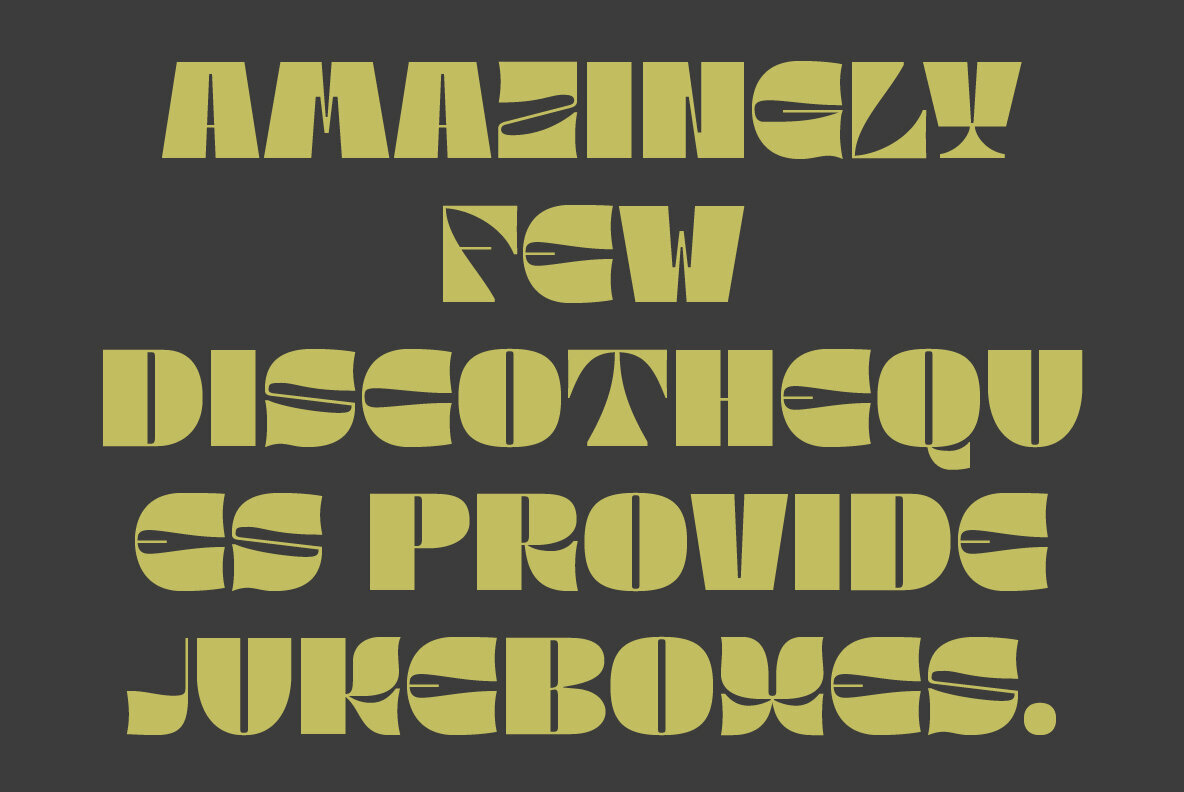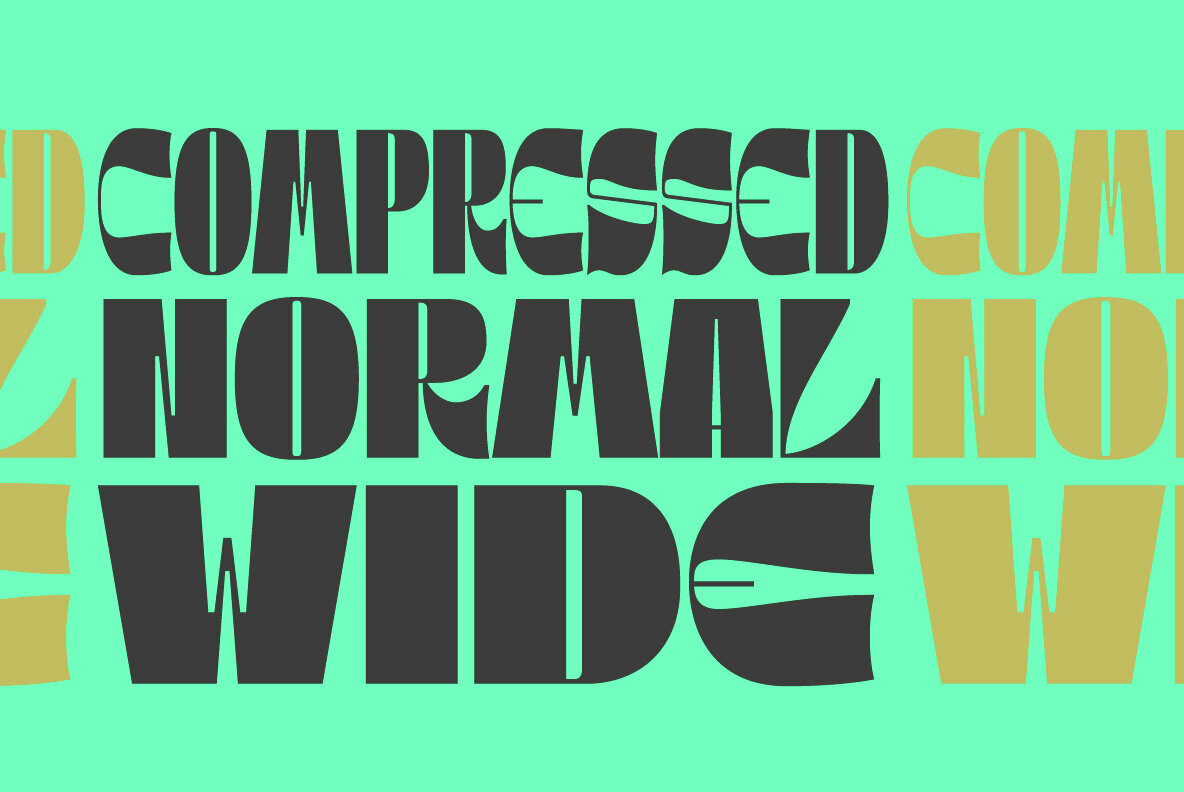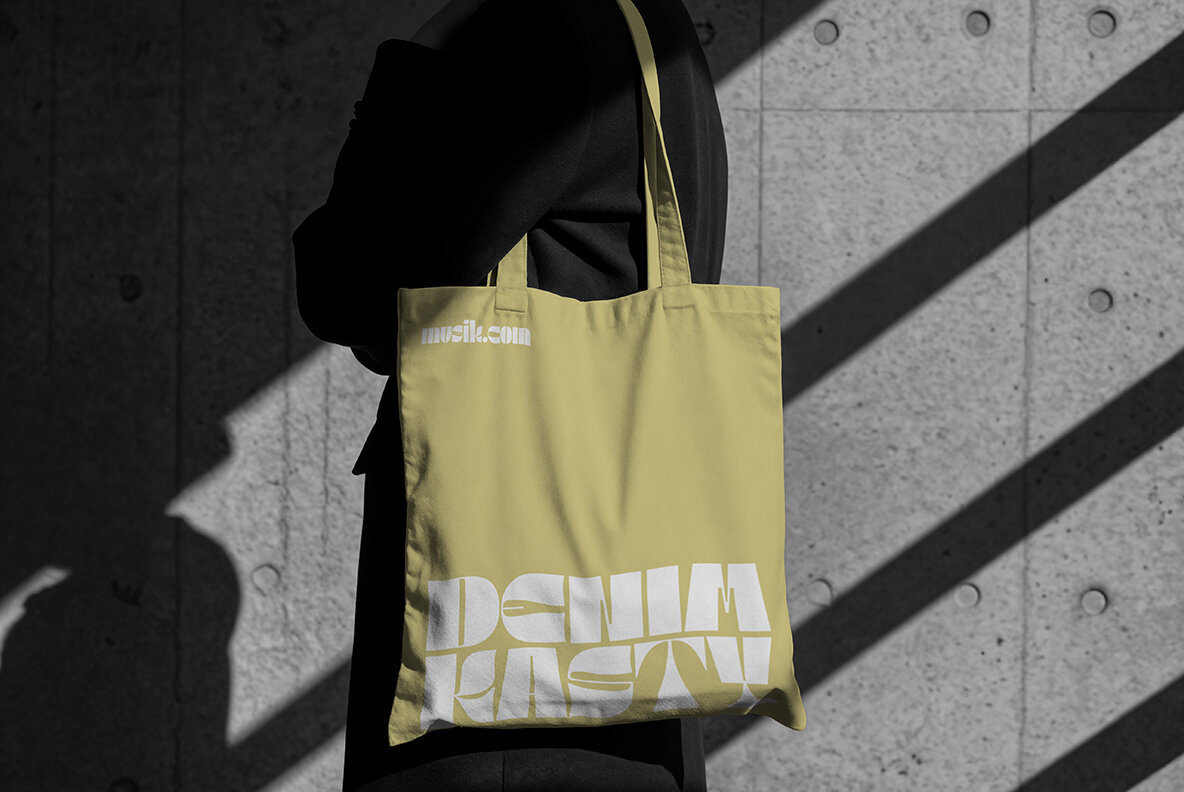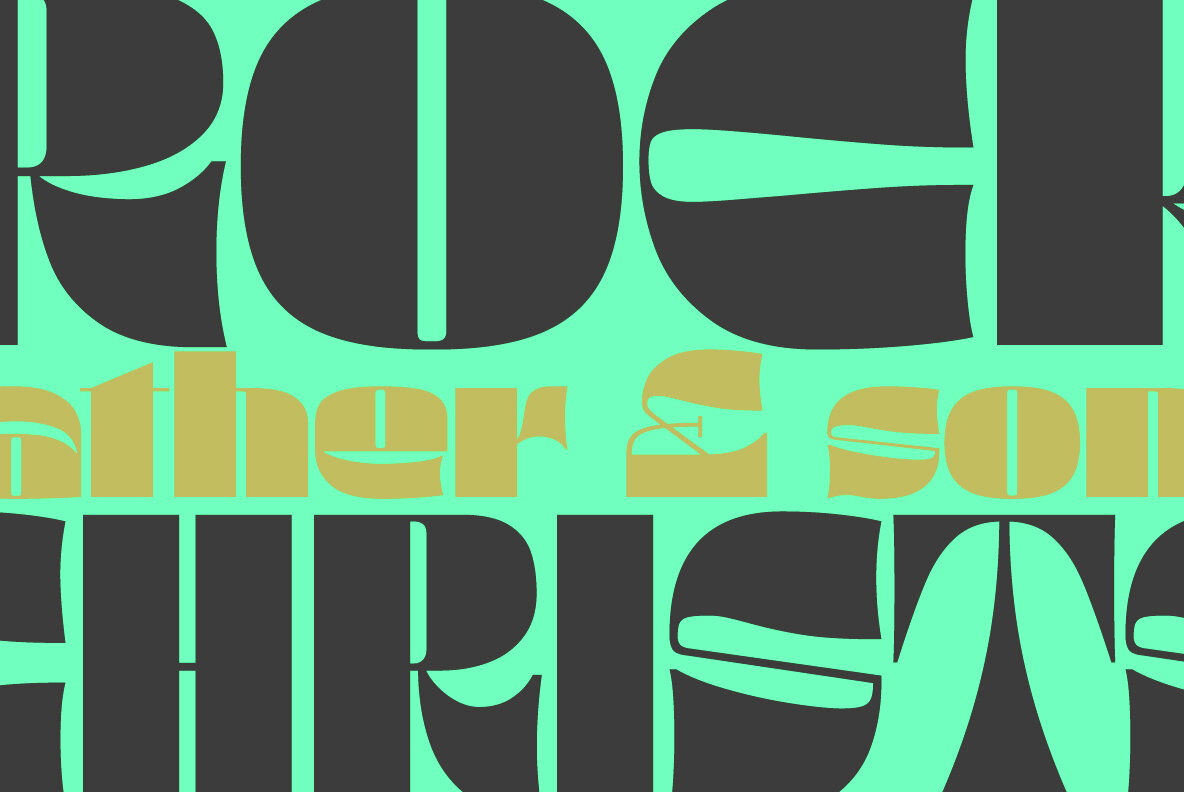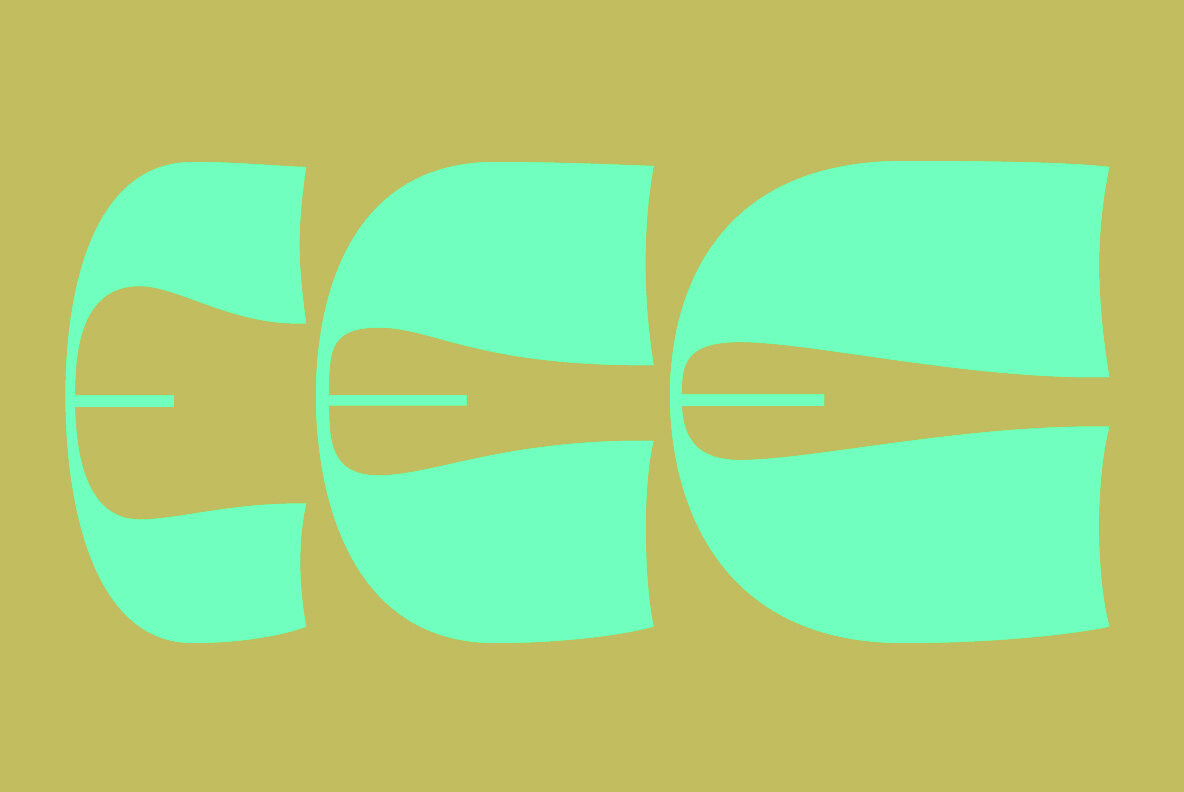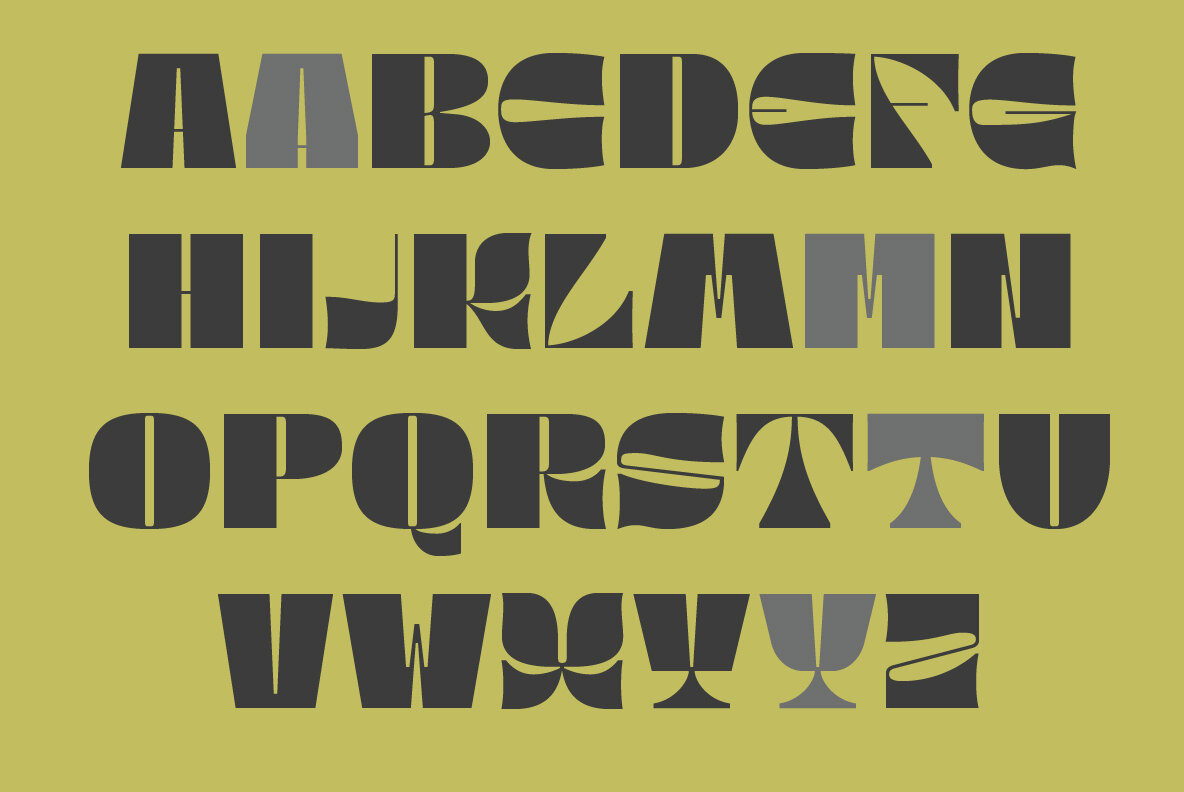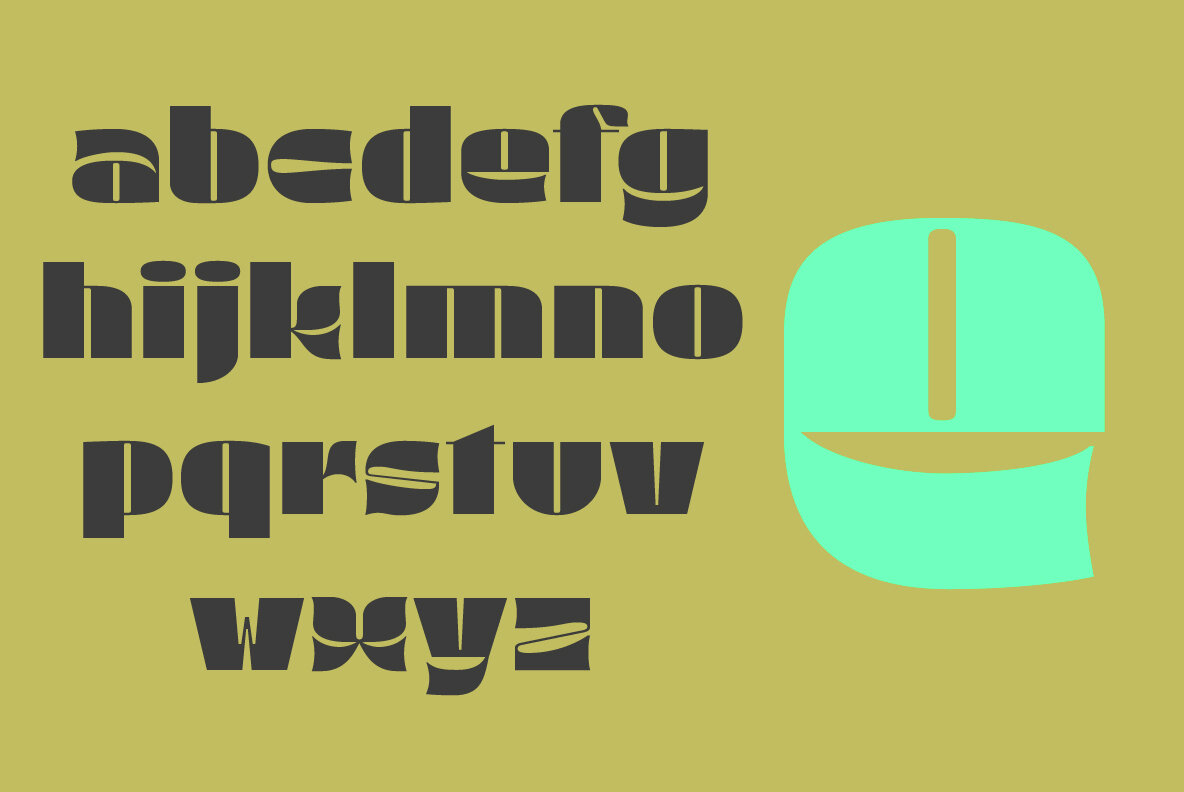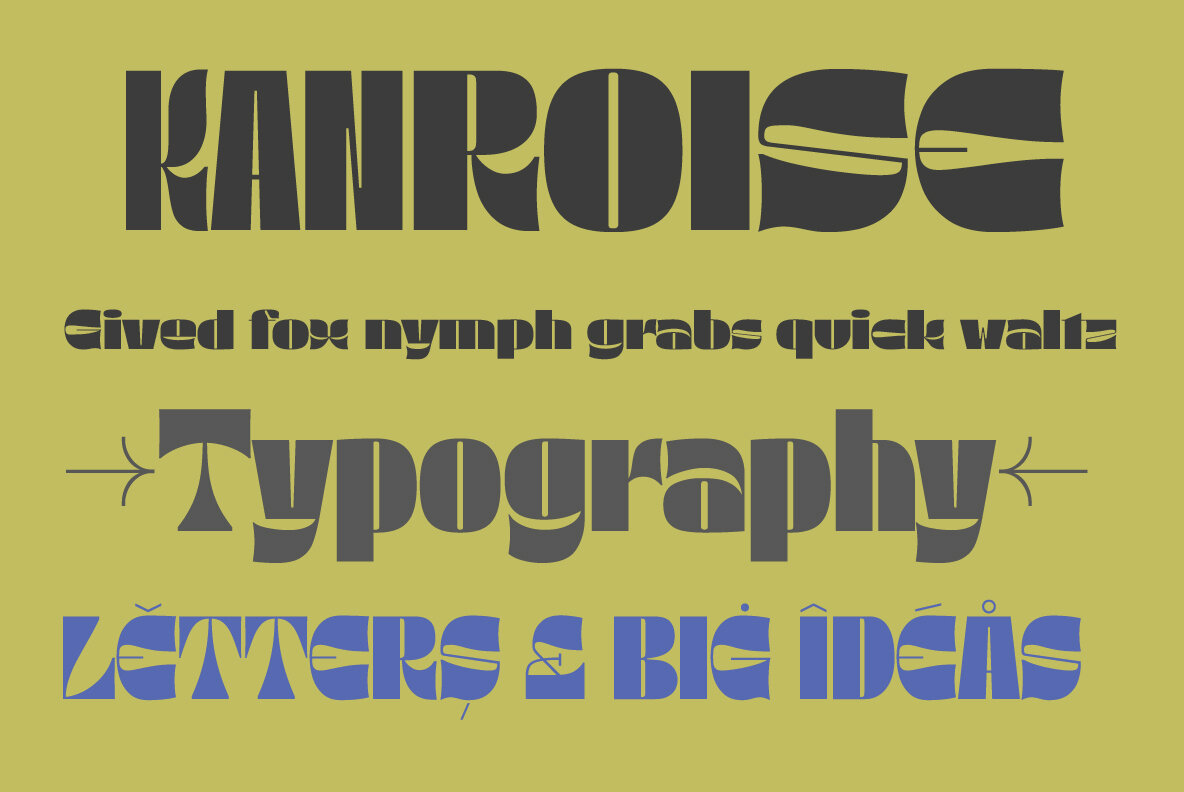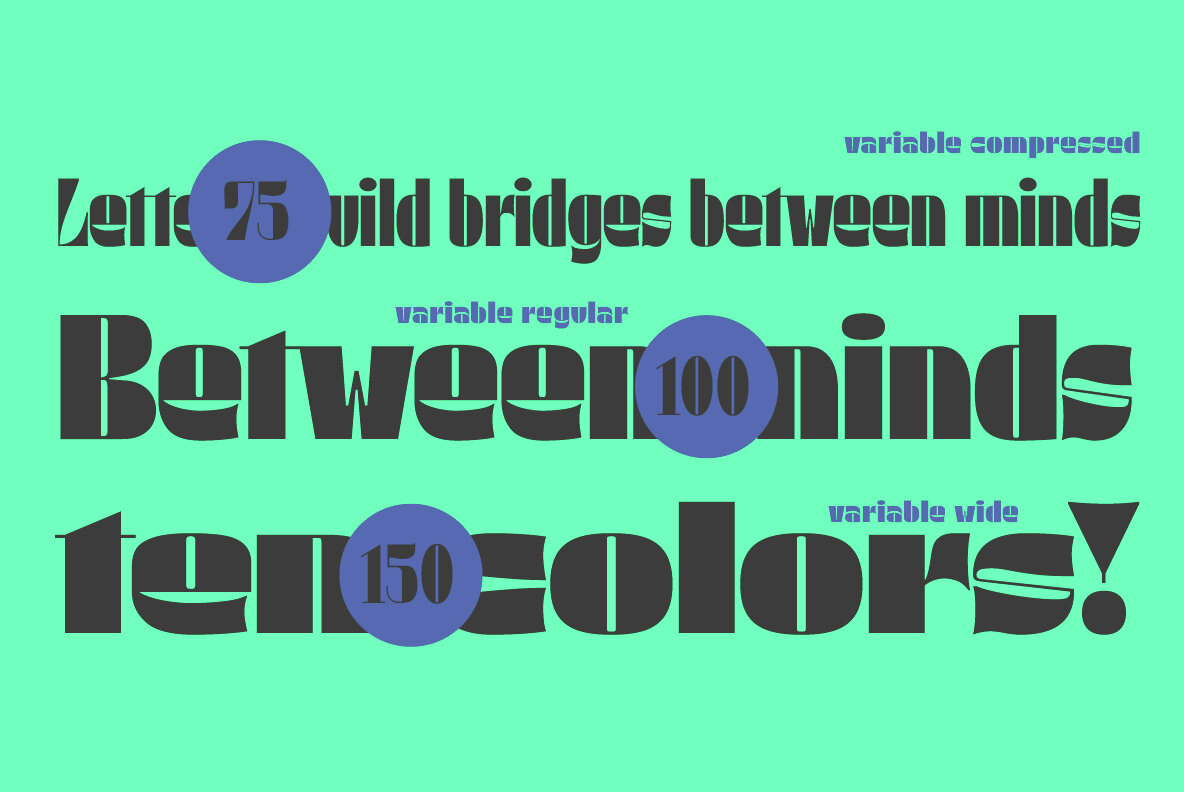
Urbolyt Font
Introducing Urbolyt VF, a variable typeface that commands attention through its remarkable contrast, where geometric precision intertwines with organic forms. Each letter is crafted as a unique construction, resembling a monument where sharp angles meet unexpected curves. Characters like N, A, and M tower like skyscrapers, while others, such as X, C, or E, reflect the lightness of natural movements. This dynamic interplay between strength and delicacy endows the typeface with a distinctive and remarkable identity. Designed to infuse words with strength and character, Urbolyt VF is perfect for impactful headlines, brand logos, event posters, and all projects demanding a bold, memorable visual presence. Features:Urbolyt VF: A Typeface of Striking Contrast